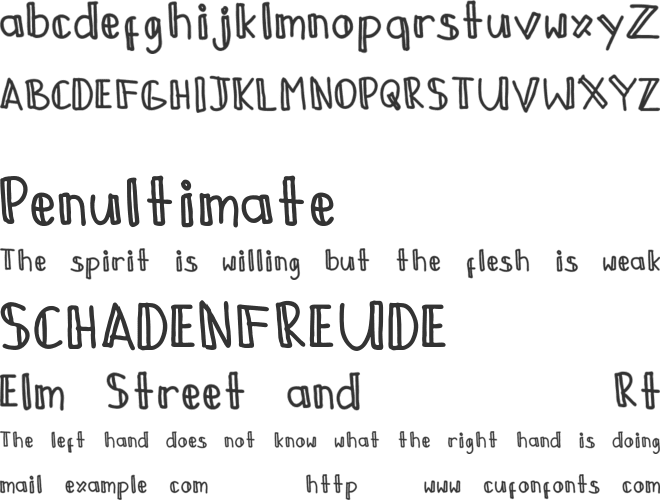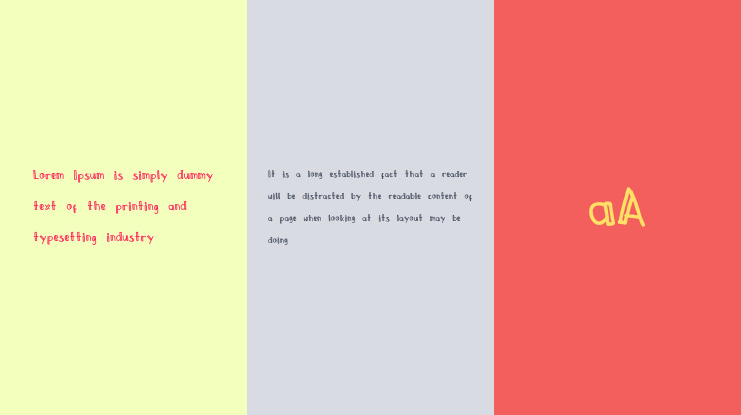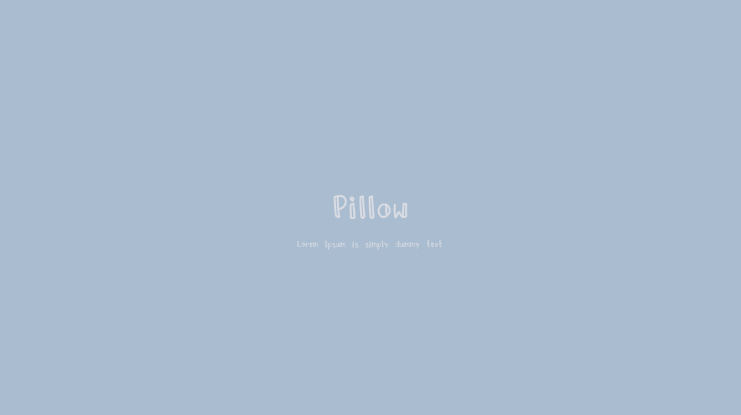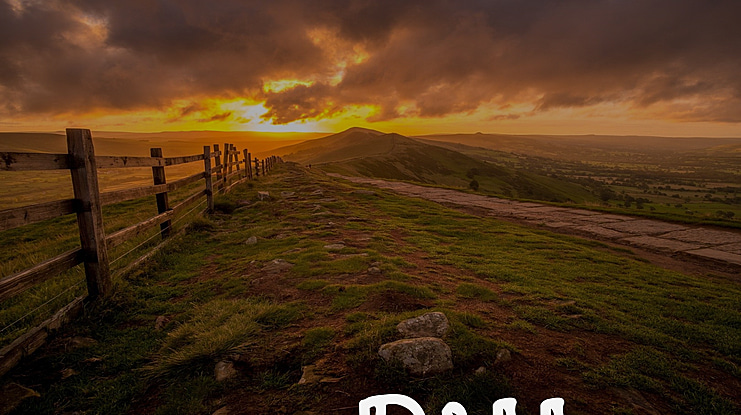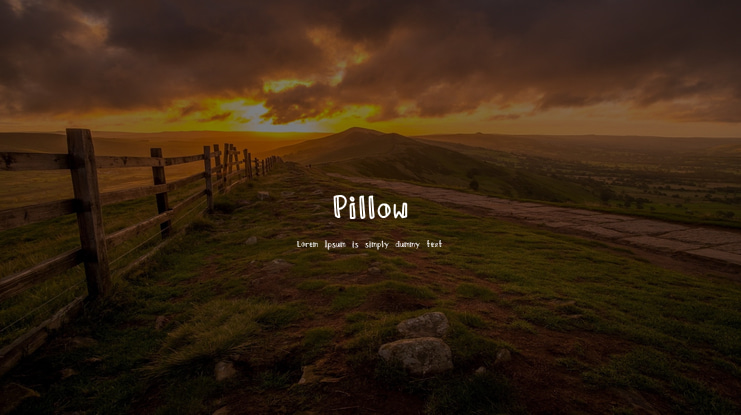
Pillow Font
Pillow is a simple and neat display font. It can be used for various purposes such as logos, headings, t-shirts, letterhead, signage, labels, news, posters, badges and so much more.